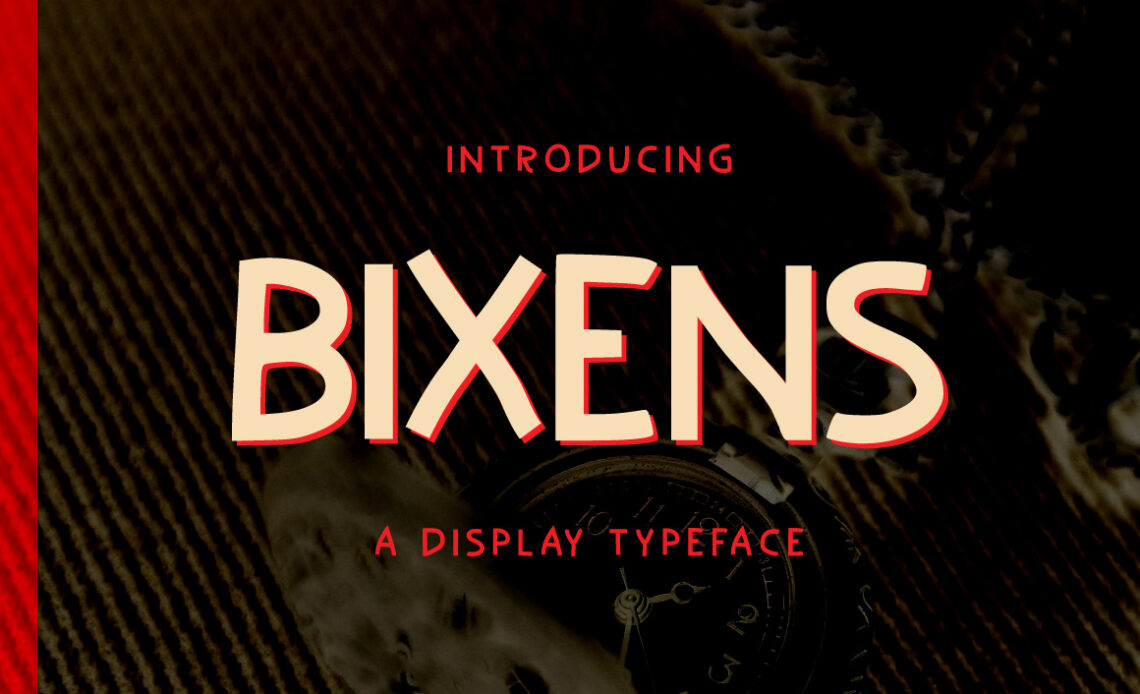
Bixens Font
Introducing Bixens, the playful display font that will ignite your creativity and add a touch of whimsy to your designs. Crafted by the renowned Contour Fonts, Bixens is a font that was born to make a statement.
With its playful curves and energetic lines, Bixens is perfect for adding a touch of lightheartedness to any project. Whether you're designing posters, creating logos, or simply adding some flair to your social media posts, Bixens is the perfect font for making your words pop.
But Bixens isn't just about fun and games. It's also incredibly versatile, with a wide range of styles to choose from. From bold and playful to elegant and sophisticated, Bixens has a look that will suit any project.
So why settle for ordinary fonts when you can have Bixens? Download Bixens today and let your creativity soar. With its playful personality and endless possibilities, Bixens is the perfect font for adding a touch of magic to your next project.